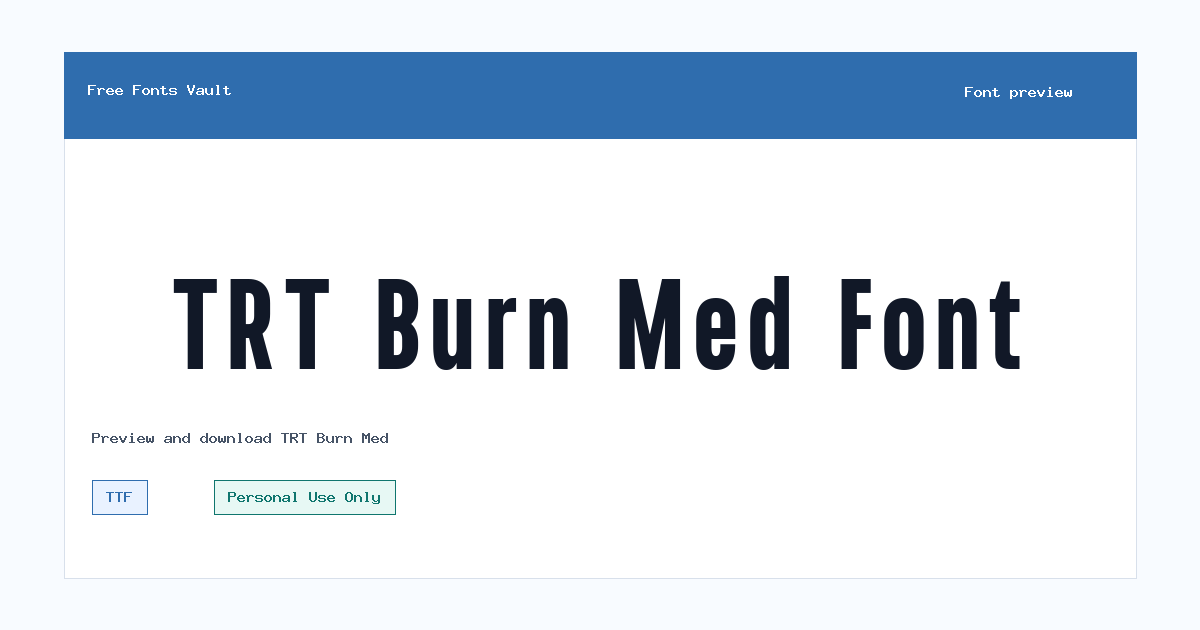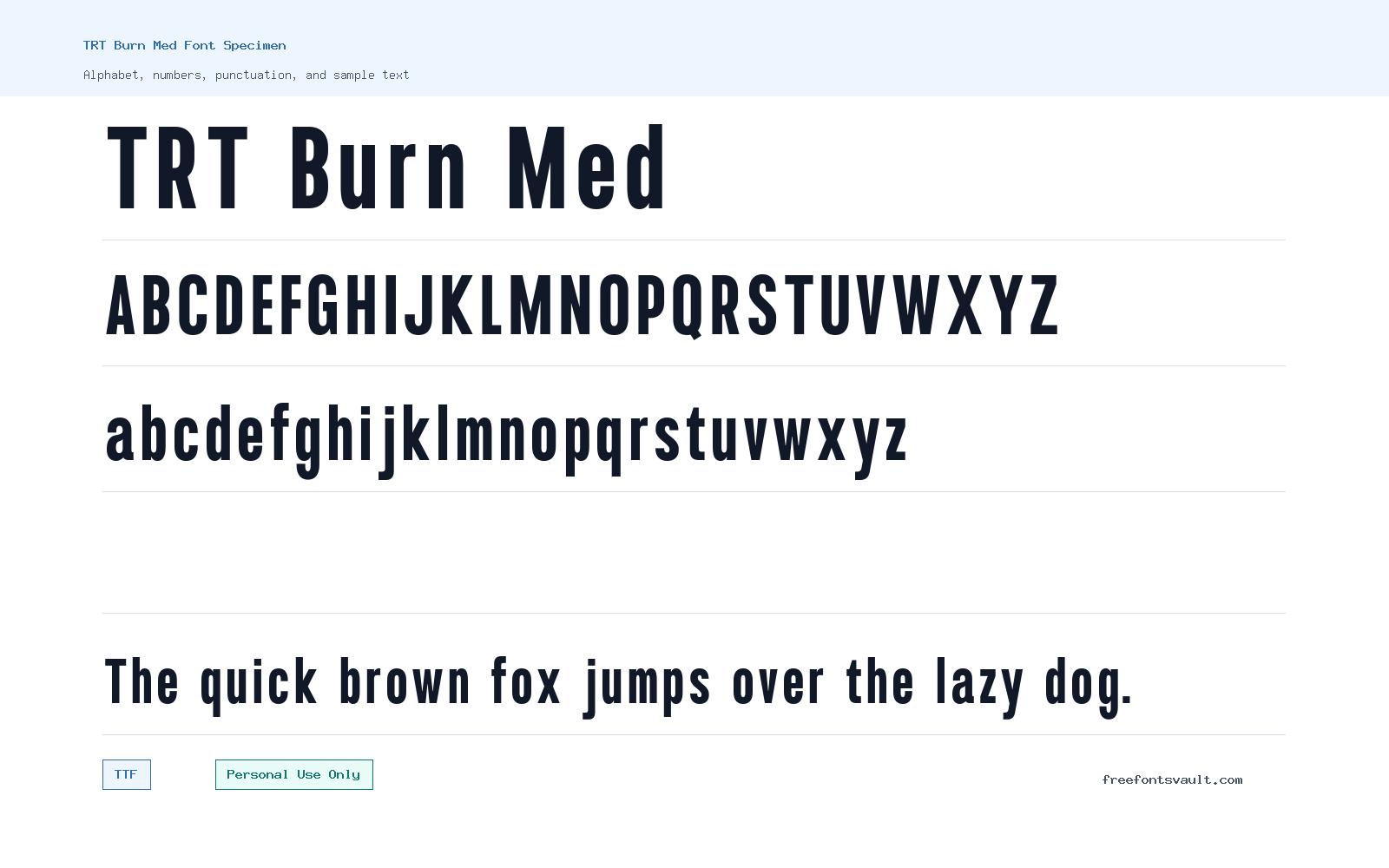
TRT Burn Med
TRT Burn Med font preview showing the family name
TRT Burn Med Font
TRT Burn Med font specimen showing alphabet, numbers, and sample text
TRT Burn Med font.
TRT Burn Med is a medium-weight sans serif font from the TRT Burn family, offered as a demo-style TTF font for personal use. Its clean weight and straightforward structure make it useful for testing bold headings, poster text, logo drafts, and visual layouts where you want a firm but not overly heavy sans serif look.
About TRT Burn Med
TRT Burn Med gives designers a practical middle weight to work with. The font file is marked as Medium, with a 500 weight value, which places it between light regular text styles and heavier bold display styles. That balance can be useful when a design needs clear impact without the density of a full bold face. Because the available file is a normal-style TTF, it should be easy to install and test in common design, office, and preview software that supports TrueType fonts. Use the live preview to check the exact letter shapes, spacing, and proportions before using it in a final layout.
The name and license text identify TRT Burn as a sans serif font family, so TRT Burn Med is best approached as a clean display or headline option rather than a decorative script or serif face. It may work well for logo drafts, poster titles, YouTube thumbnails, website hero mockups, social graphics, product labels, and short branding text. For longer paragraphs, test it carefully at smaller sizes. Medium sans serif fonts can look clear in headings but may feel too firm for dense body copy depending on the spacing, x-height, and screen size. If you are building a full layout, pair TRT Burn Med with a calmer body font so the headline keeps attention while the supporting text remains easy to read.
• Medium 500 weight for headings, titles, and brand mockups that need presence without a full bold style.
• Normal upright style, useful for clean layout work where slant or decorative effects are not needed.
• Sans serif family description, making it a practical choice for modern display text and short-form design.
• Logo concepts and brand direction drafts where a clear sans serif wordmark is needed.
• Poster titles, event graphics, flyers, and display headlines.
• Website hero mockups, landing page headings, and UI concept screens.
• Social media images, thumbnails, banners, and short promotional layouts.
• Product label tests, packaging mockups, and presentation title slides.
What type of font is TRT Burn Med?
TRT Burn Med is described as part of the TRT Burn Sans Serif Font Family. The available style is a normal, medium-weight TrueType font.
What does the Medium weight mean?
The Medium style has a 500 weight value, which usually gives more emphasis than a regular style while staying lighter than a bold weight. It is often useful for headings and short display text.
Can I use TRT Burn Med for a logo?
You can test it in personal logo drafts and mockups, but commercial logo use is not covered by a Personal Use Only license. For any business, client, brand, or trademark-related use, confirm licensing first.
Is TRT Burn Med good for posters?
Yes, it is a reasonable choice to test for poster titles, event graphics, and display text because the medium sans serif style can hold attention without becoming too heavy. Always preview your exact wording before finalizing.
What should I pair TRT Burn Med with?
Pair it with a simple, readable sans serif for body text. Let TRT Burn Med handle headlines, names, or short labels, and use the companion font for longer reading sections.